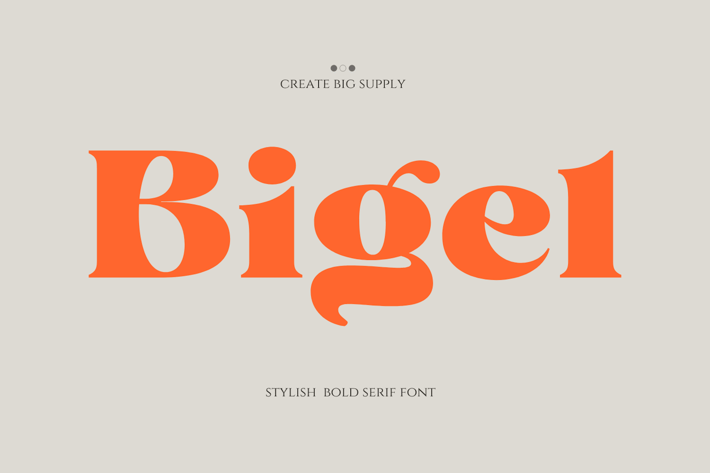
Elegant Display Serif Font for Sophisticated Brand
Bigel is an elegant display serif font that blends modern sophistication with timeless style. Its refined curves and strong contrast make it perfect for high-end branding, magazine layouts, invitations, and luxury product packaging.
Designed to impress, Bigel brings a sense of elegance and clarity to every project.
Key Features:
- Elegant serif with luxurious character
- Ideal for branding and editorial work
- High contrast strokes for visual impact
- Great for headlines, logos, and labels
- Uppercase & lowercase letters
- Numerals and punctuation
- Multilingual support
Bigel is your go-to typeface for classy, elevated design.